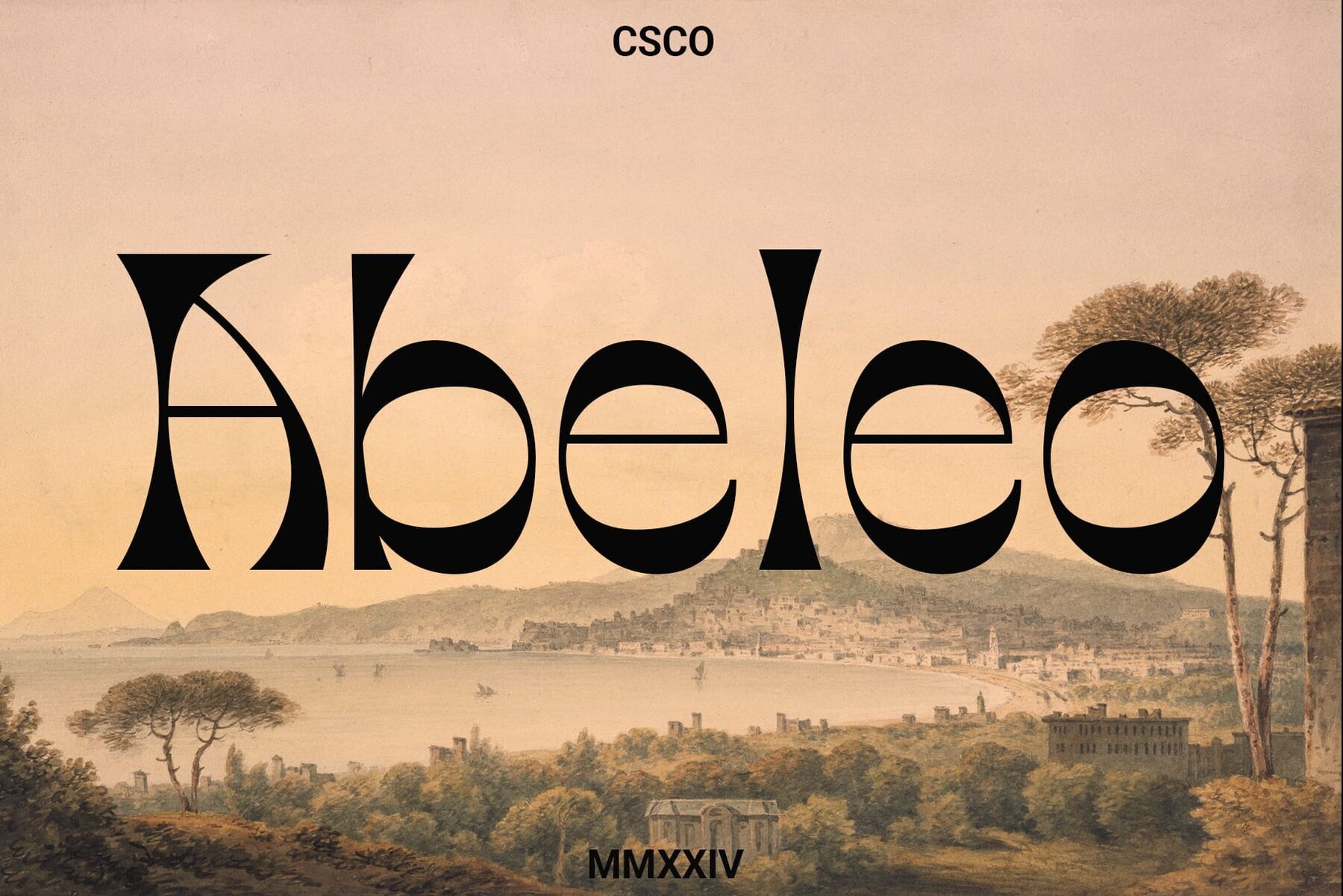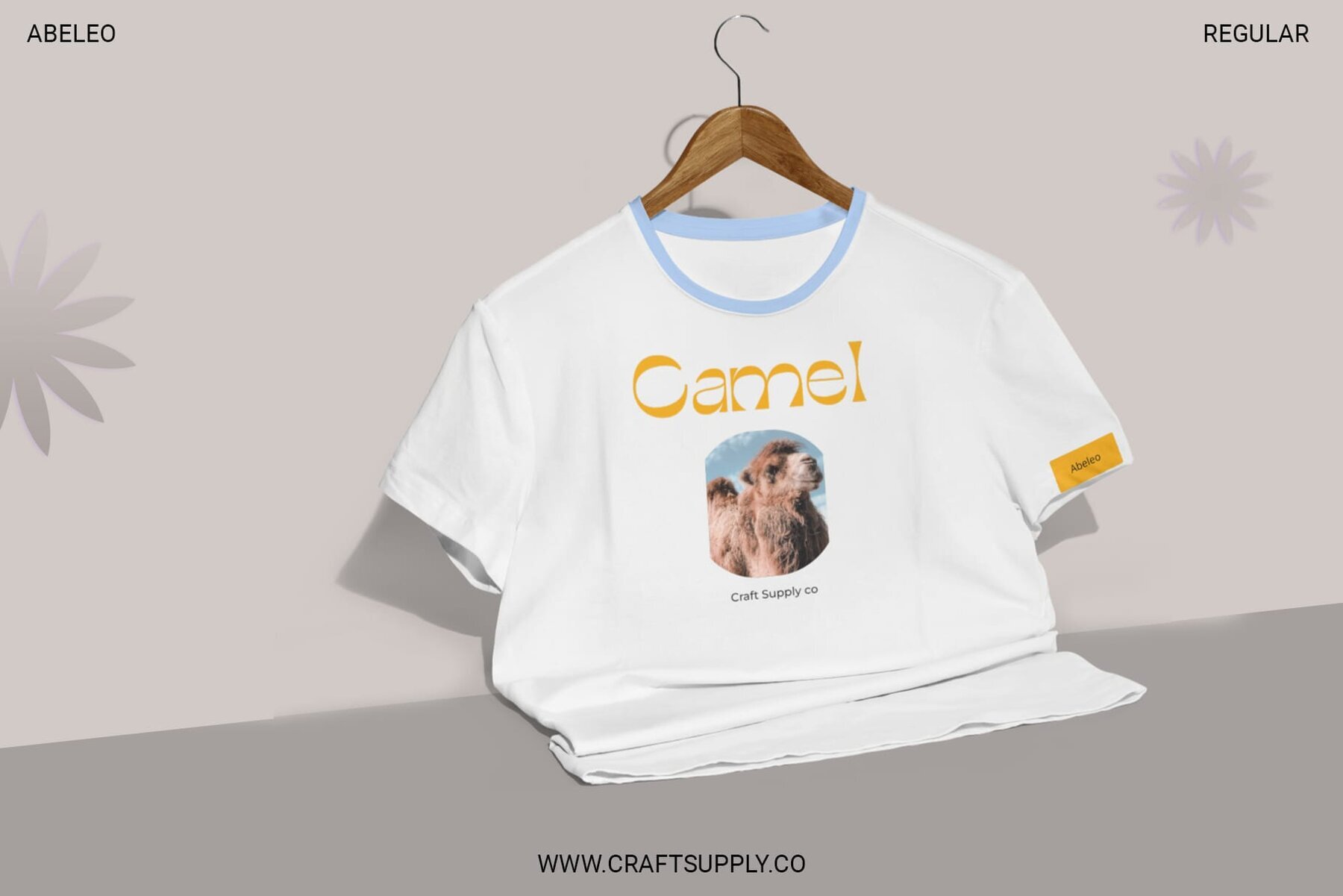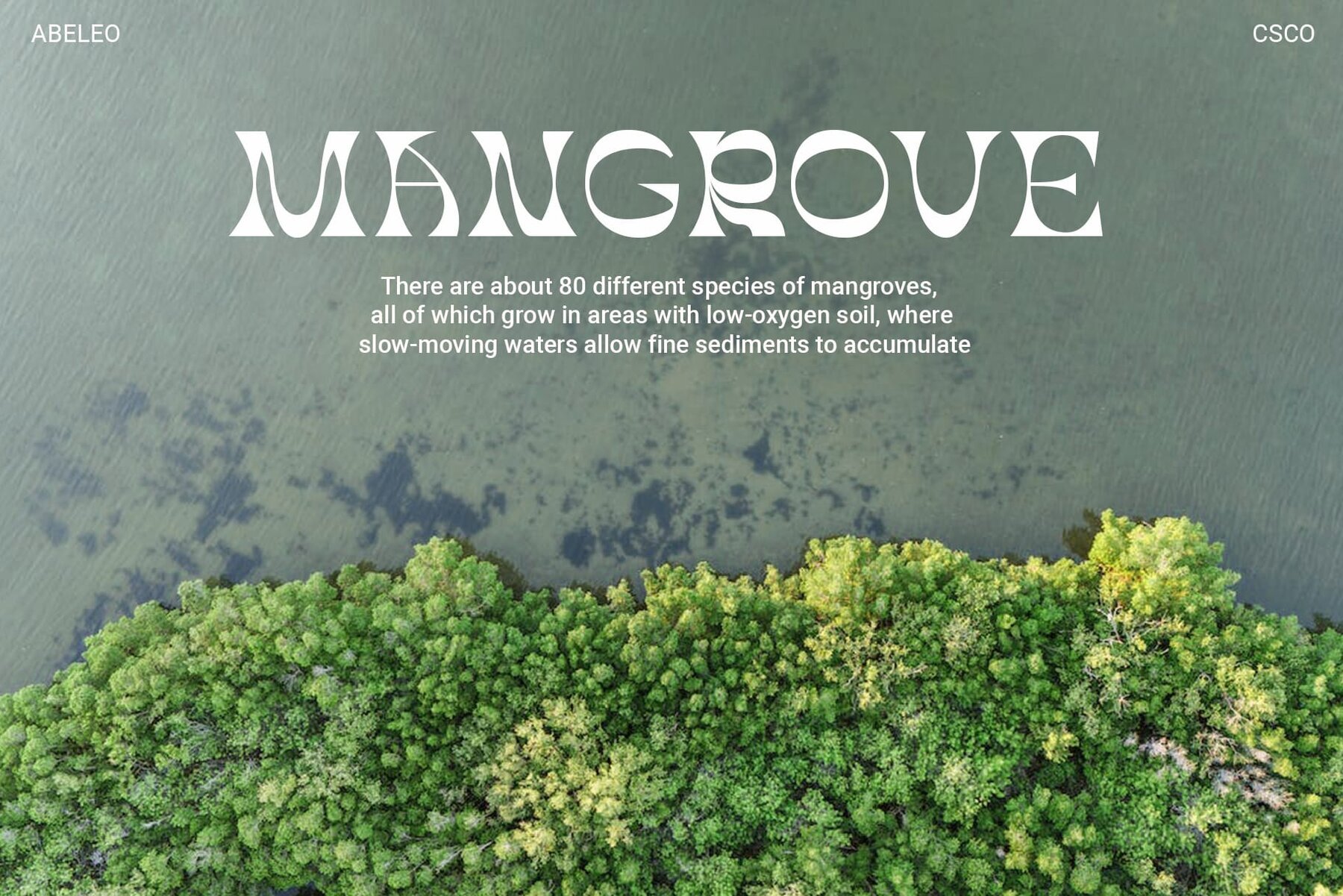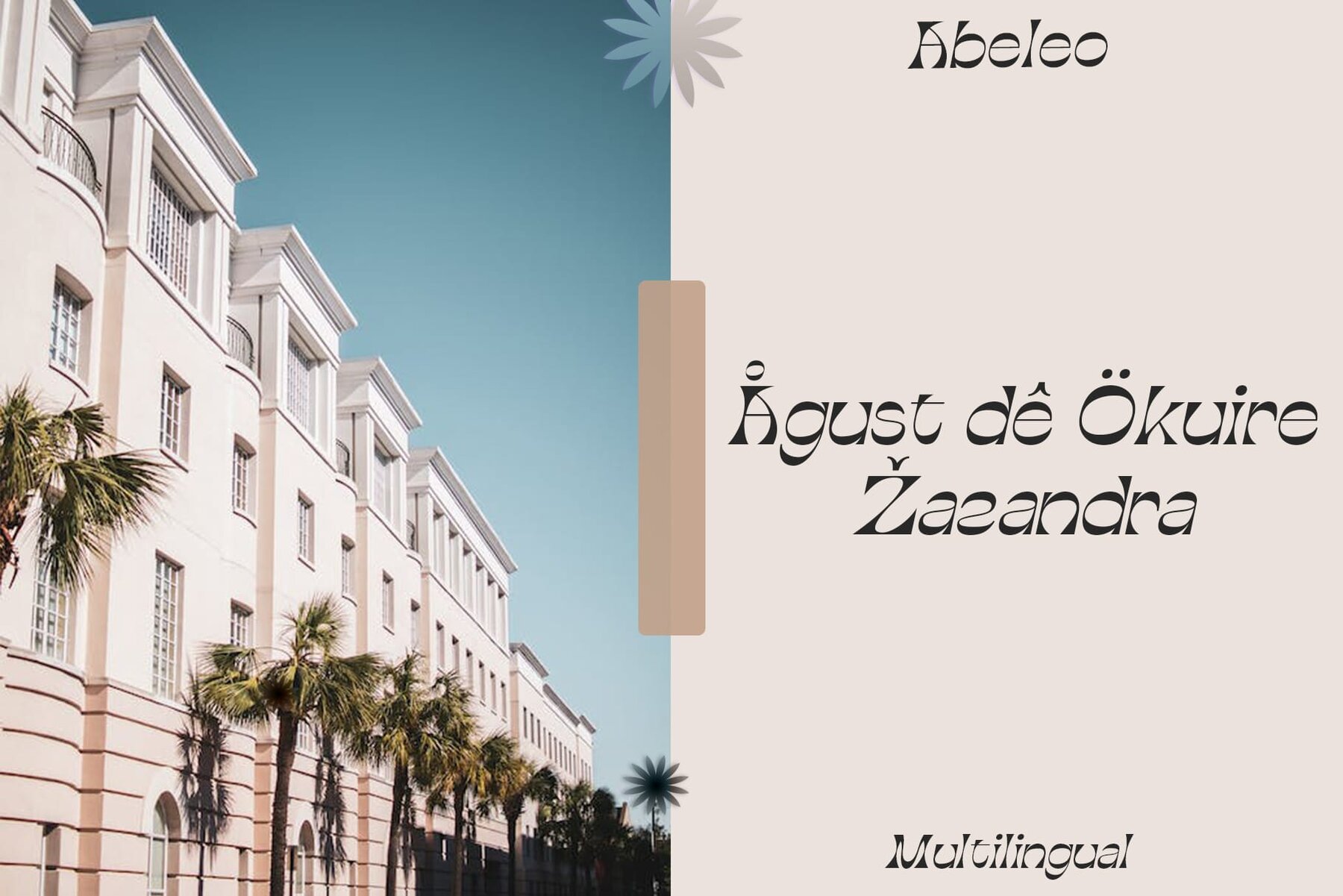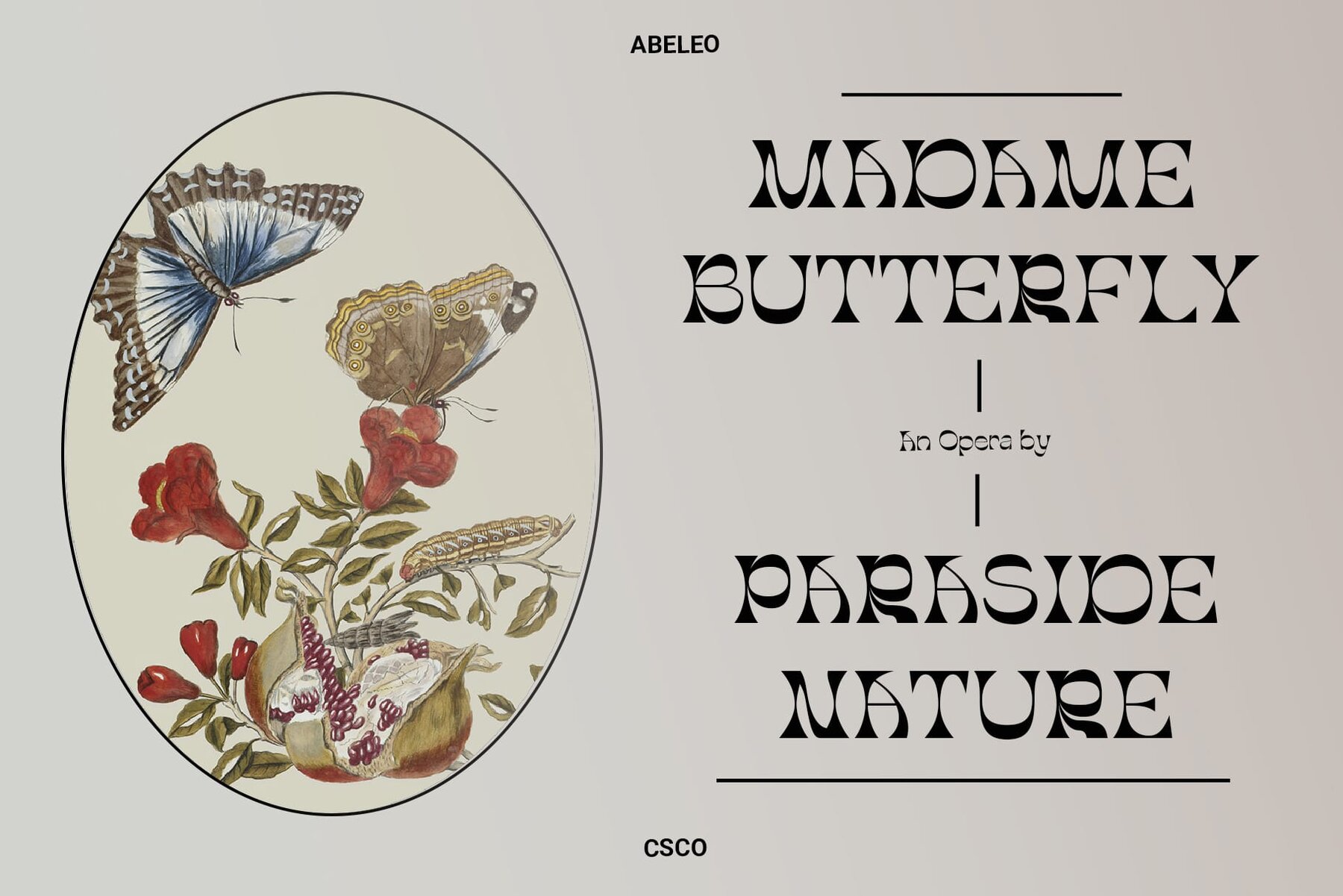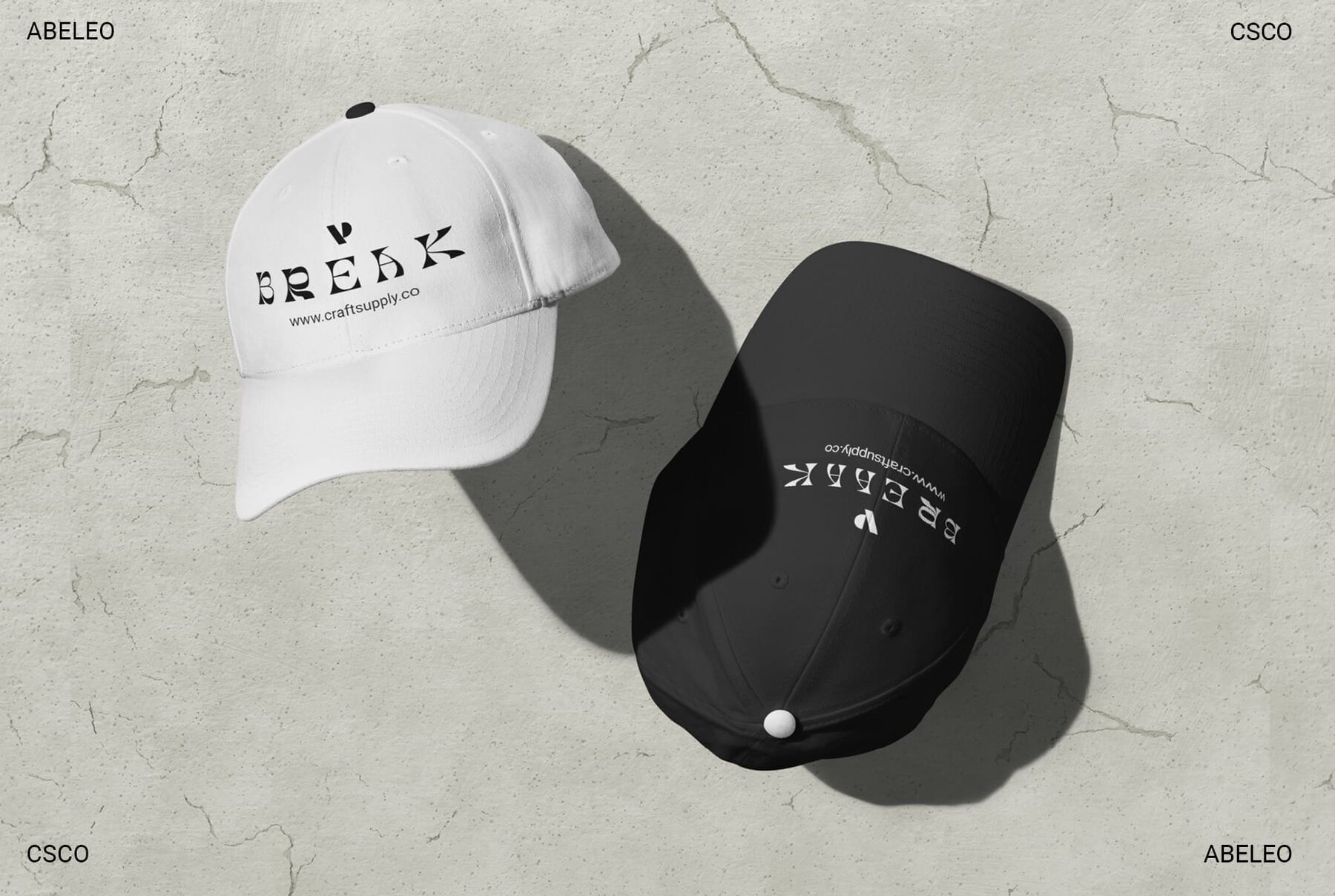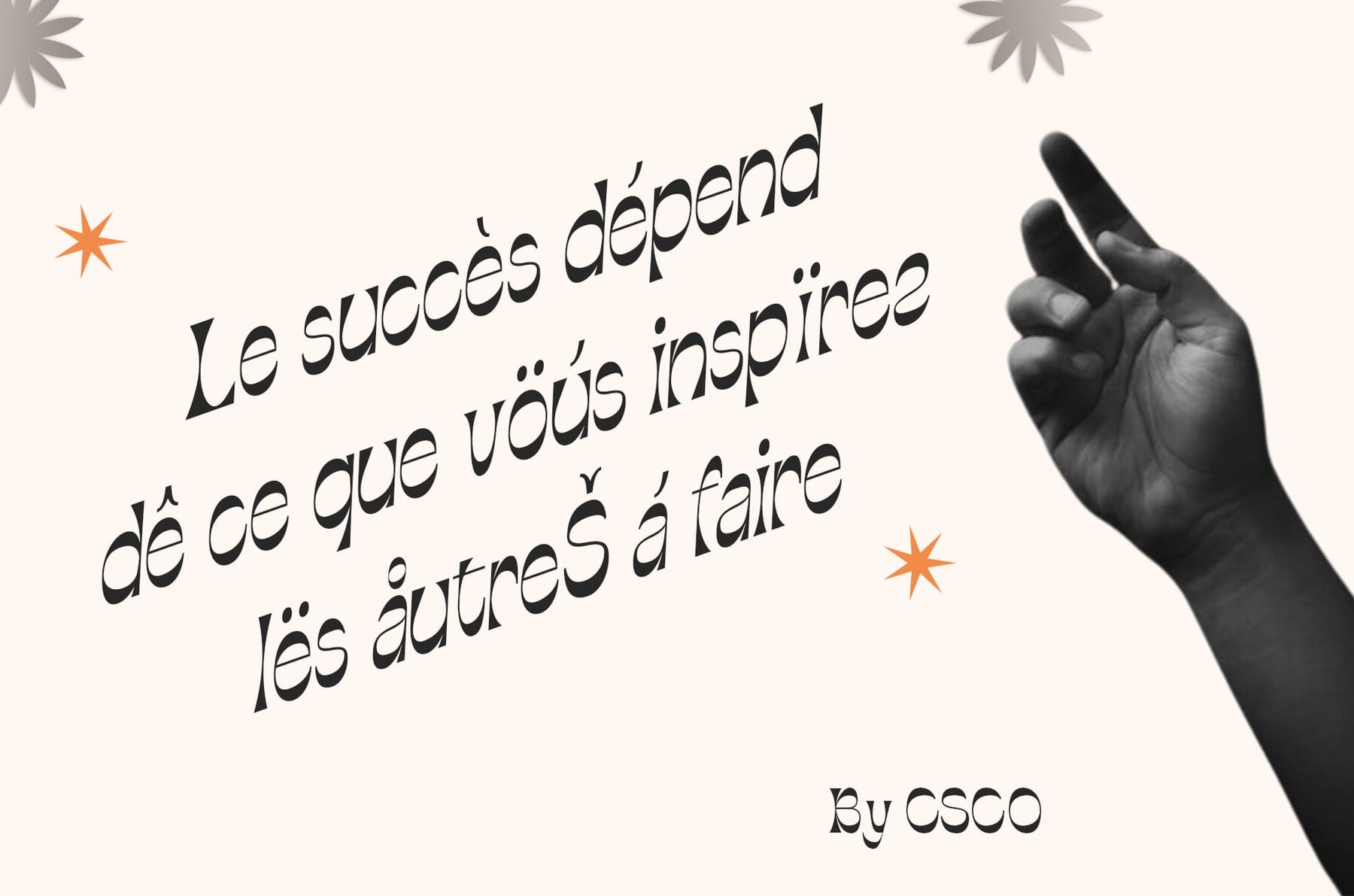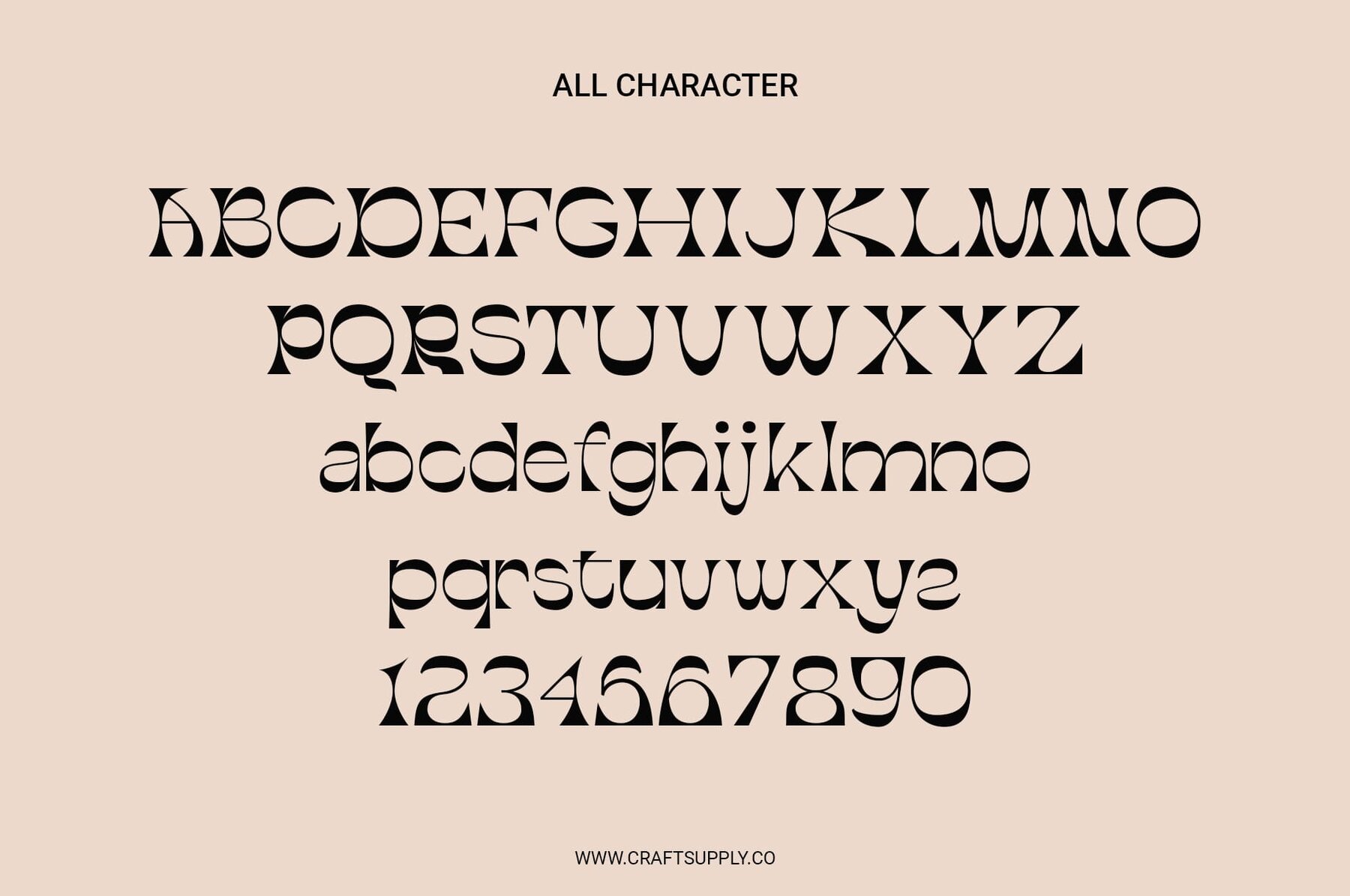
Abeleo Font
Abeleo brings a burst of creativity to your designs with its quirky and vibrant typographic style. This font is the epitome of funkiness, ensuring that any project it touches comes to life with energy and unique flair. Experience unmatched funkiness with Abeleo's eye-catching design. Its bold, unconventional structure ensures a lively and captivating presence that sparks the imagination. Featuring a distinctive inverted contrast, Abeleo stands out with its irresistible visual appeal. It's a captivating choice for any display where uniqueness takes center stage. Whether used for posters, branding, or digital graphics, Abeleo guarantees a vibrant and dynamic impact. Its versatility allows for limitless creative expression and a bold statement on any design canvas. This typeface can be used without any specialized software. If you have any inquiries or need assistance, please feel free to contact us. We appreciate your support in enhancing your creative projects!Abeleo: Unleashing Funkiness in Typography
Funky Fascination
Contrast that Captivates
Diverse Applications